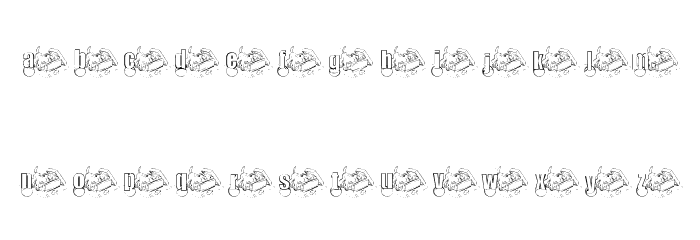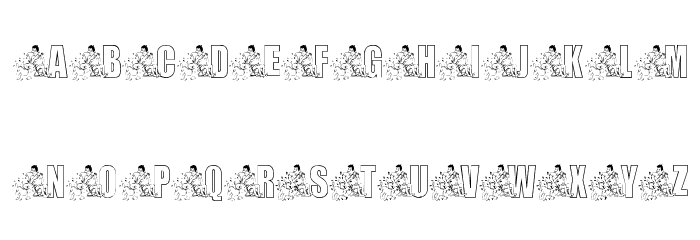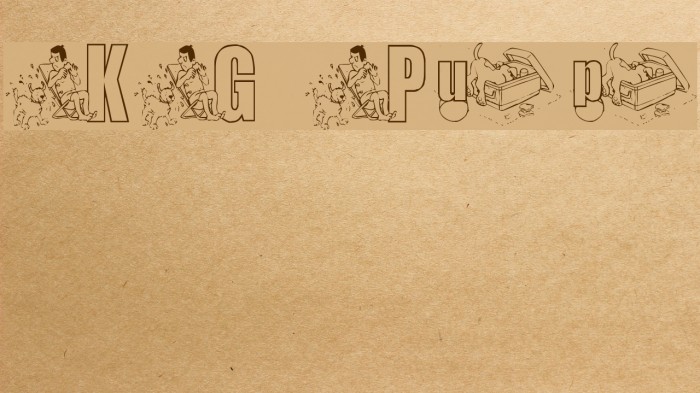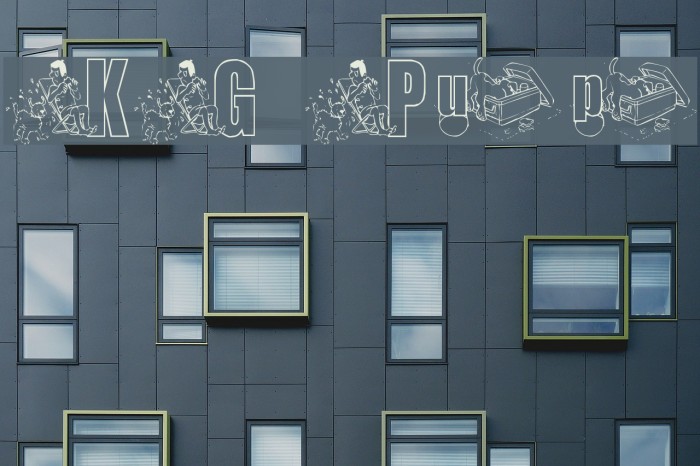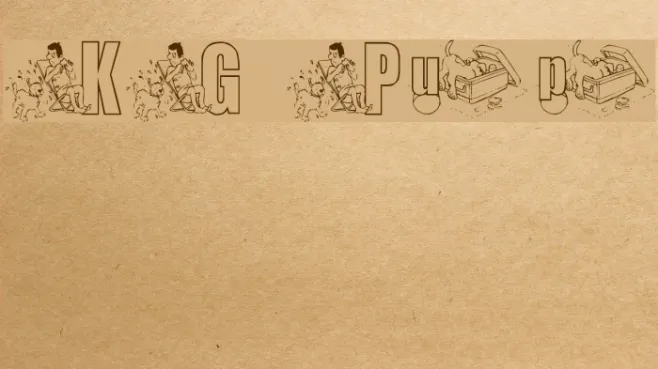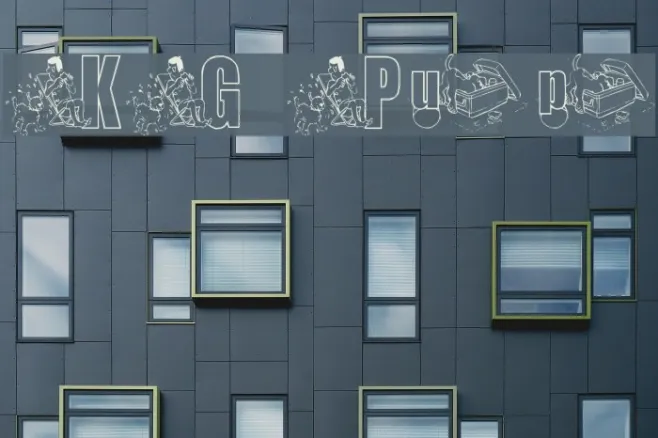
KG Pup Font
This playful and whimsical font features each letter accompanied by a charming illustration of a dog, creating a delightful and engaging visual experience. The uppercase and lowercase letters are designed with a consistent style, maintaining clarity and readability while incorporating the adorable dog motif. The font's unique design makes it particularly suitable for children's materials, pet-related projects, or any creative endeavor that seeks to convey a sense of fun and friendliness. The characters are outlined, providing a clean and modern look that balances the decorative elements with functionality.
A playful font with each letter paired with a dog illustration, perfect for fun and creative projects.
- Proposed Projects: Ideal for children's books, pet branding, playful invitations, and educational materials.
- Overall Style: Playful, Whimsical
- Use Case: Headlines, Logos, Creative Projects